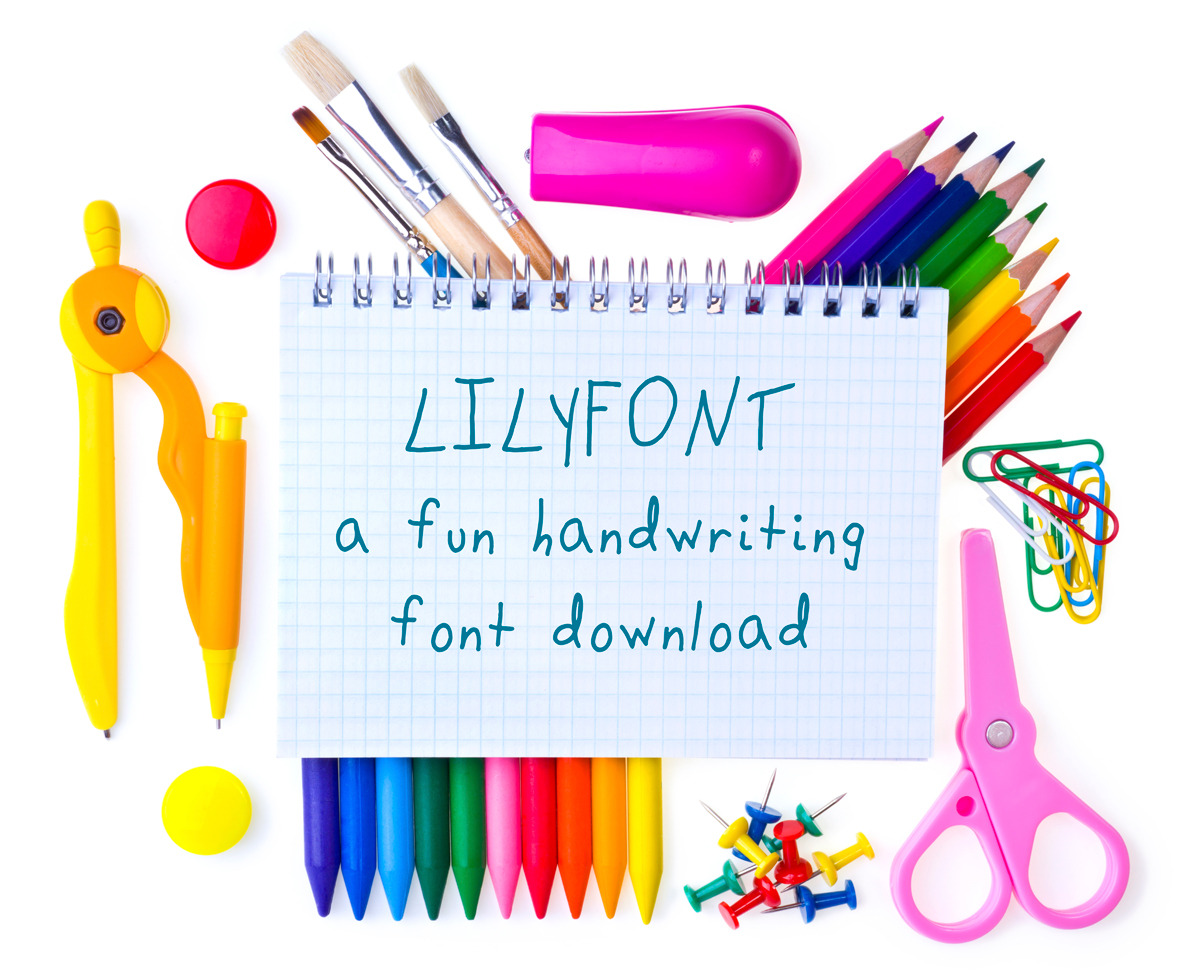
Lilyfont Childrens Handwriting Font
This fun hand-drawn lettering font will add childlike fun to your own projects. OTF file includes upper and lowercase as well as common punctuation. Created from my daughter's handwriting, every purchase of this font goes to her college fund!